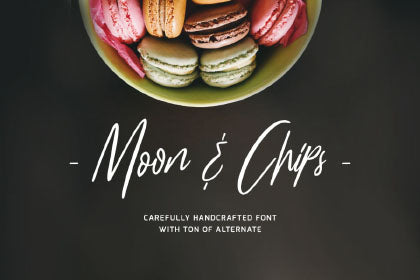
Free Moon and Chip Hand-drawn Font
Today we're glad to feature this free moon and chip hand-drawn font. Go give some love to Free Design Resources for creating this top-notch free typeface. This is absolutely fancy font so you can easily make world-class designs.